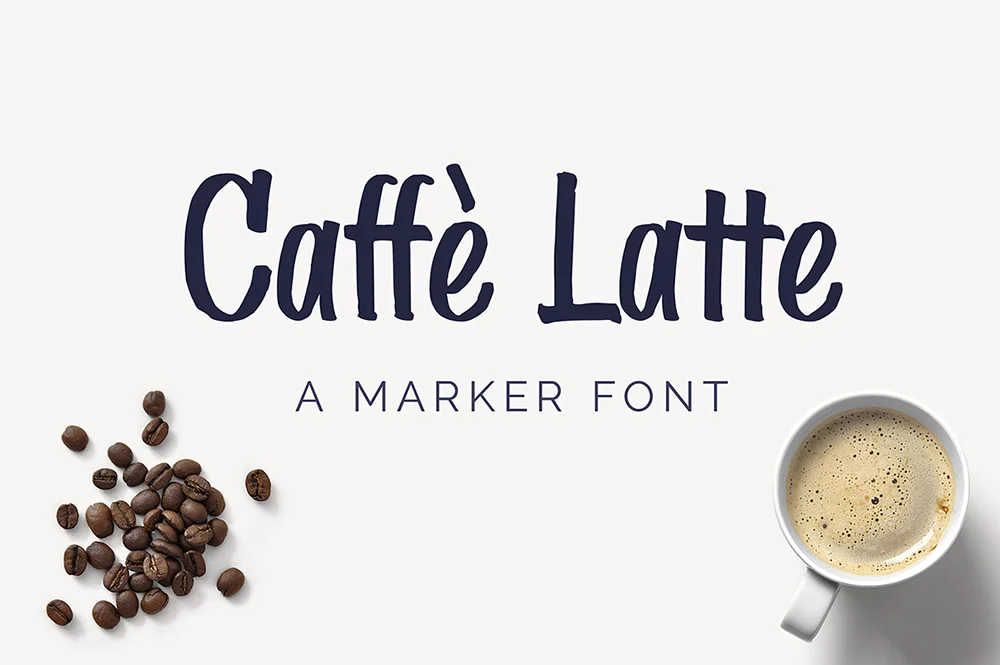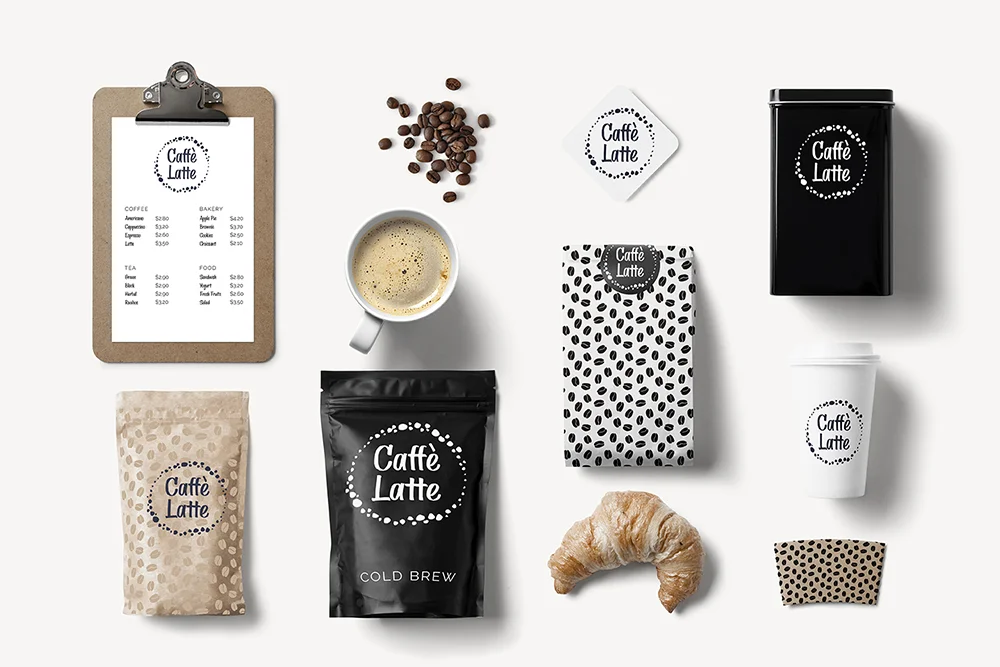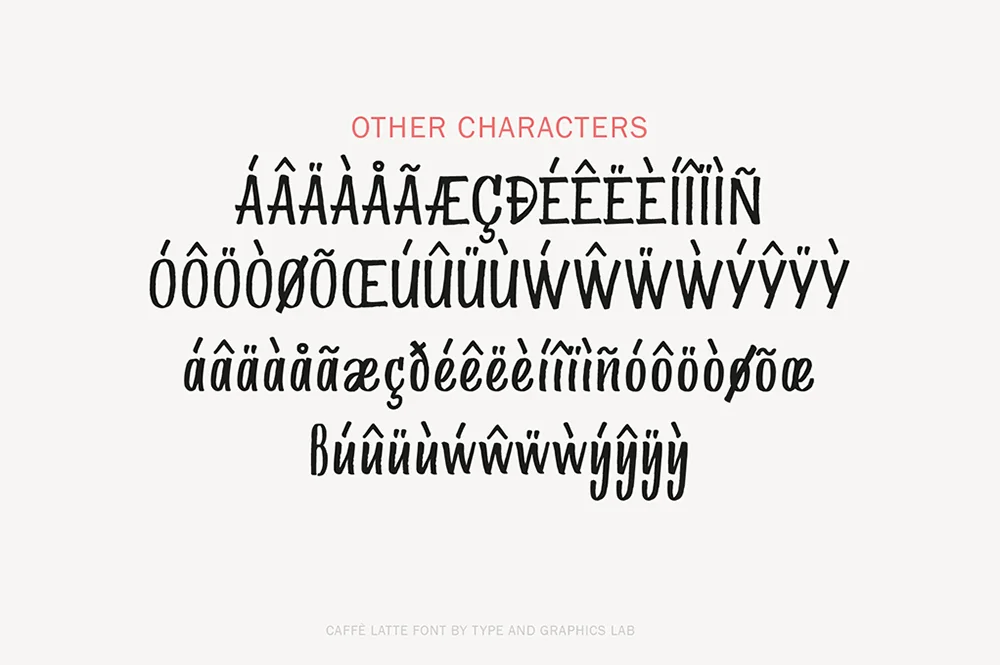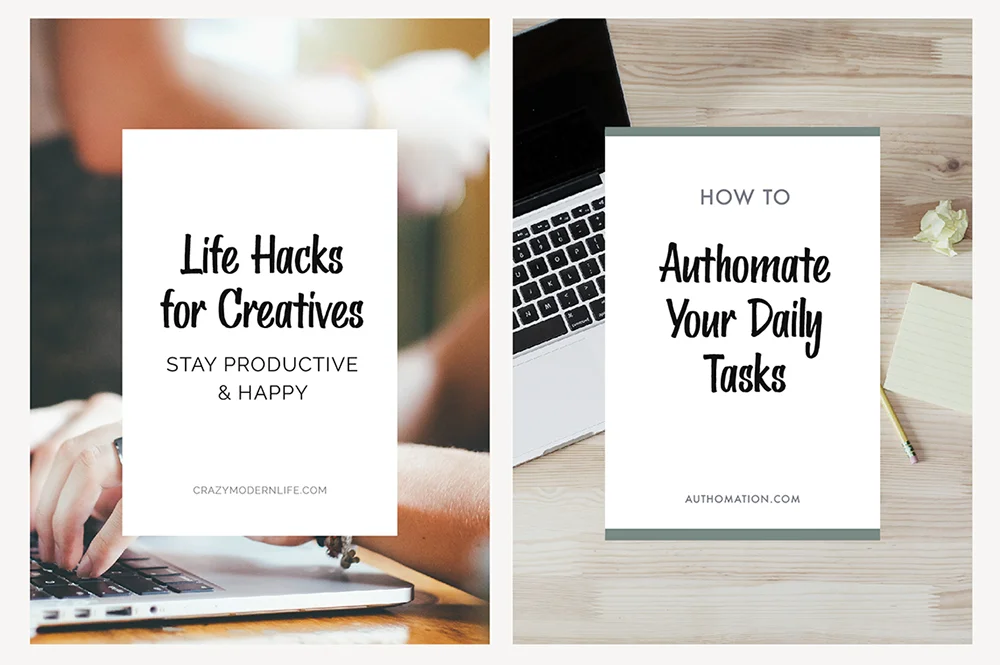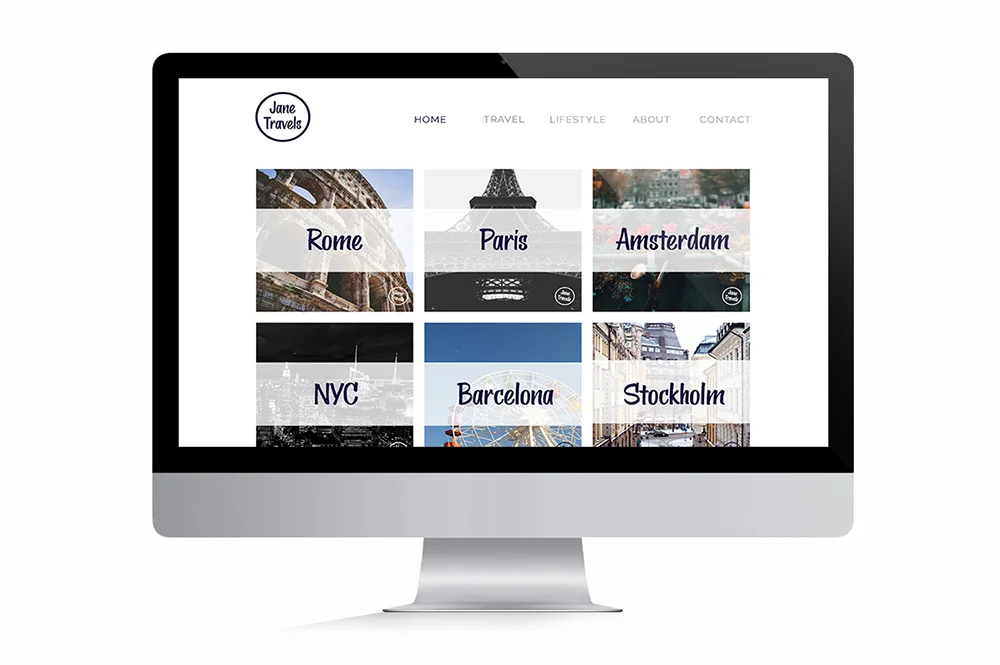
Caffè Latte
Caffè Latte is a hand drawn marker font with a playful and fresh look. It comes with capital and lowercase characters, punctuation, numerals and symbols. International characters are represented on a preview. As a display typeface Caffè Latte is suitable for branding, logotypes, print and digital ads, social media marketing, posters, and many more. Check out the previews for inspiration!